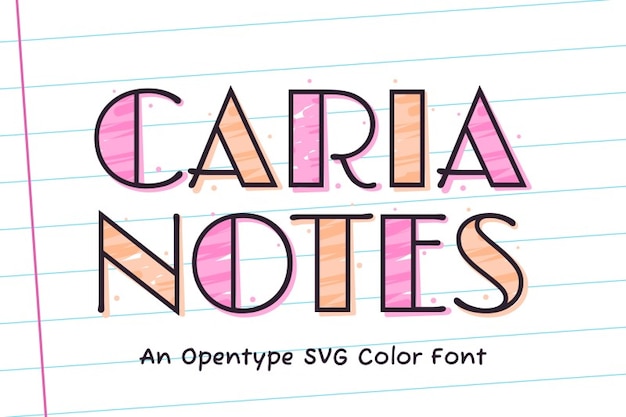
Caria Notes is a simple, handwritten font that captures the charm of personal notes and diary entries. With its clean, basic strokes, it feels natural and effortless, perfect for journaling, planners, and casual designs. Soft and approachable, Caria Notes brings a warm, personal touch to any project, making every word feel authentic and thoughtfully written.